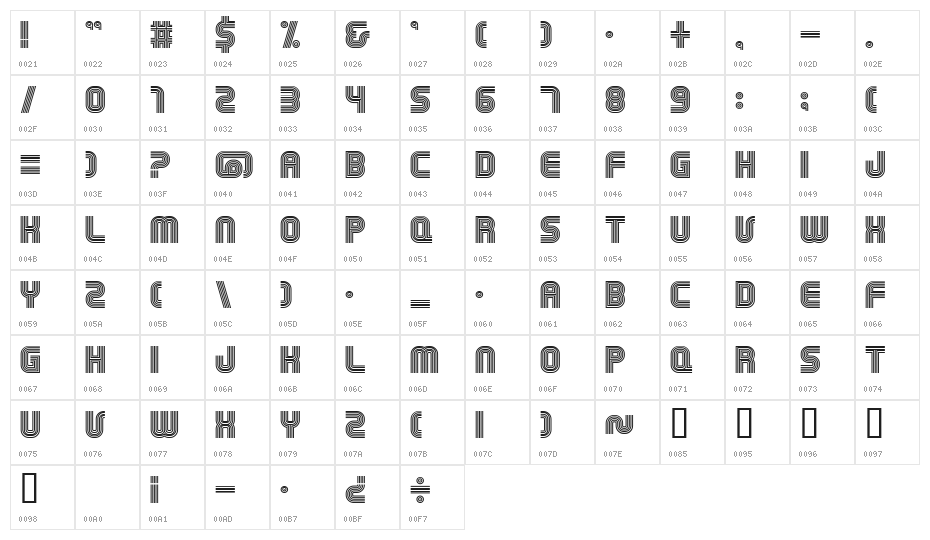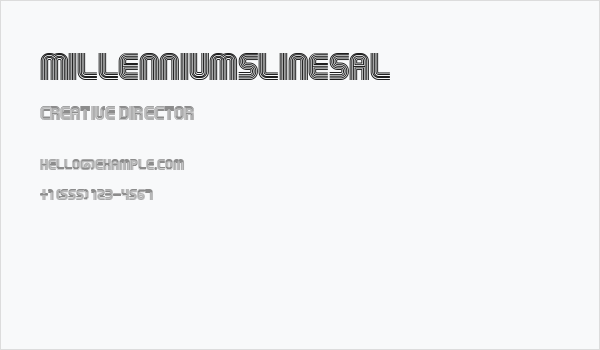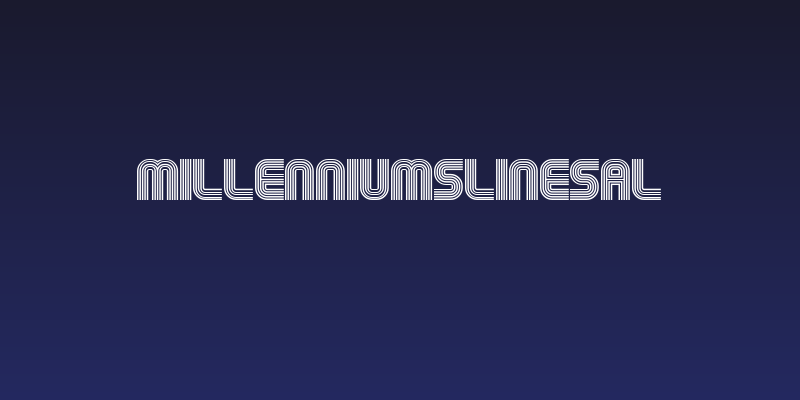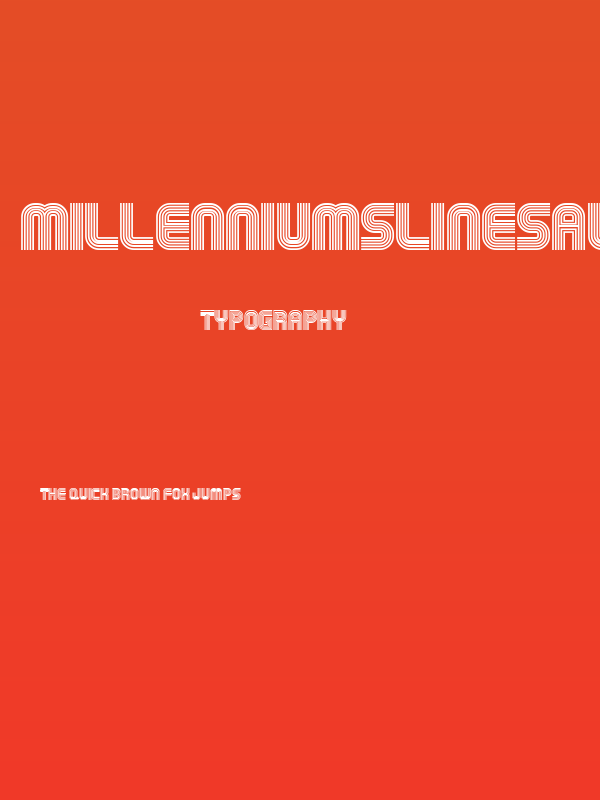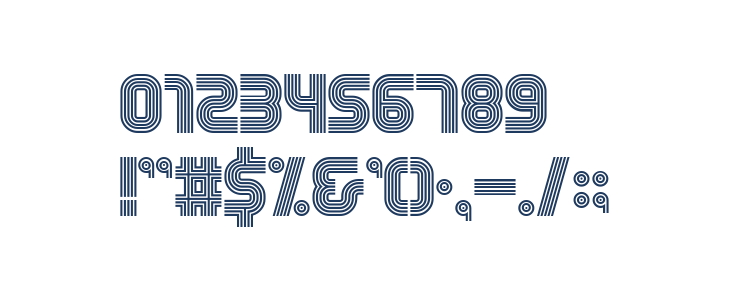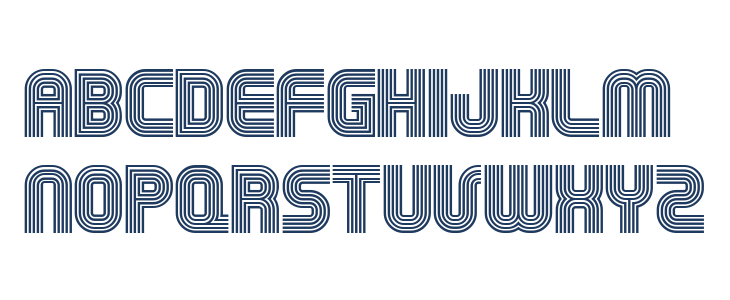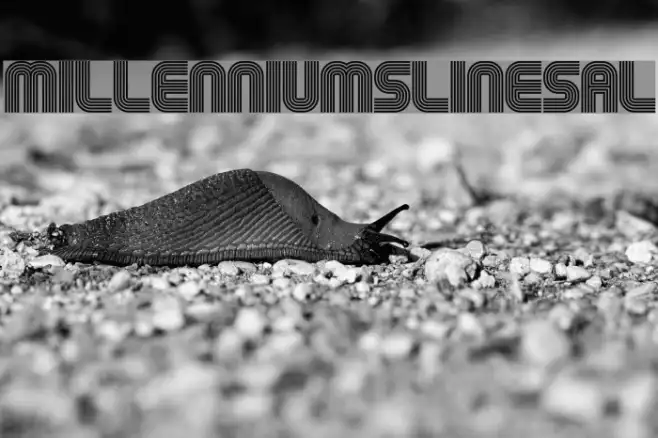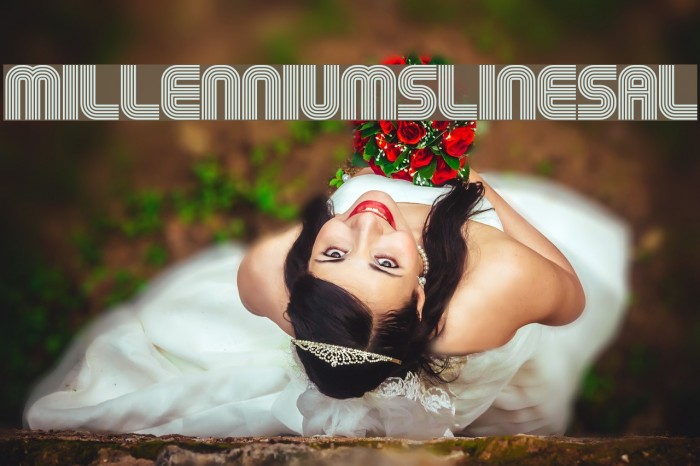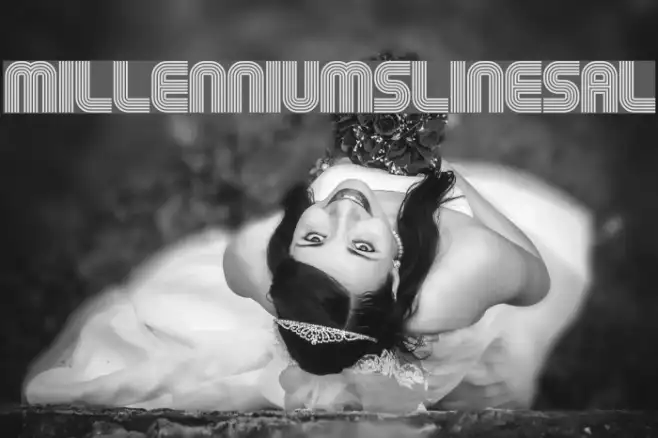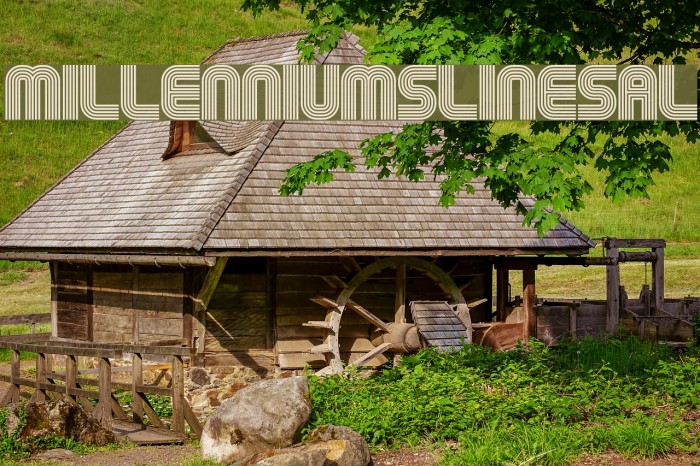
Millennium5linesAl Font
Millennium5linesAl Description
This font features a unique and striking design with multiple parallel lines forming each character, creating a bold and futuristic appearance. The geometric structure is consistent across uppercase and lowercase letters, as well as numbers and special characters. The lines are evenly spaced, giving the font a sense of rhythm and movement. Its distinct style makes it stand out, ideal for projects that require a modern and eye-catching typeface. The font's design is both decorative and functional, offering versatility in various creative applications.
| Proposed Projects | Ideal for branding, posters, album covers, and any project needing a modern, eye-catching typeface. |